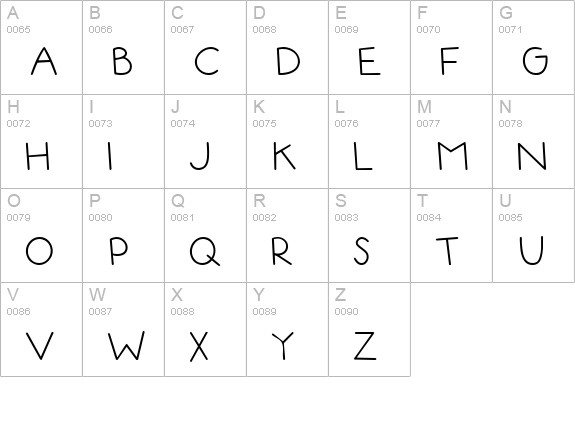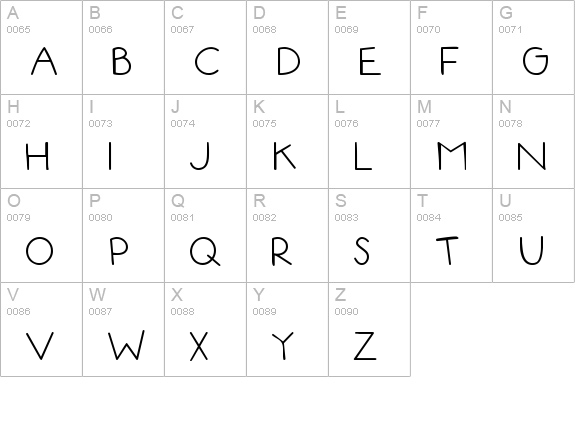
CK Plain Jane Font Details
CK Plain Jane font is a classic typeface that exudes simplicity and elegance. With its clean lines and timeless appeal, this font is perfect for a wide range of design projects. Whether you're working on a website, branding, or printed materials, CK Plain Jane will bring a touch of sophistication to your work. What's even better is that CK Plain Jane is available for free download at FontsMarket.com. This means you can easily access this beautiful font and use it in your projects without any cost. Don't miss out on this opportunity to enhance your designs with the beauty of CK Plain Jane font.